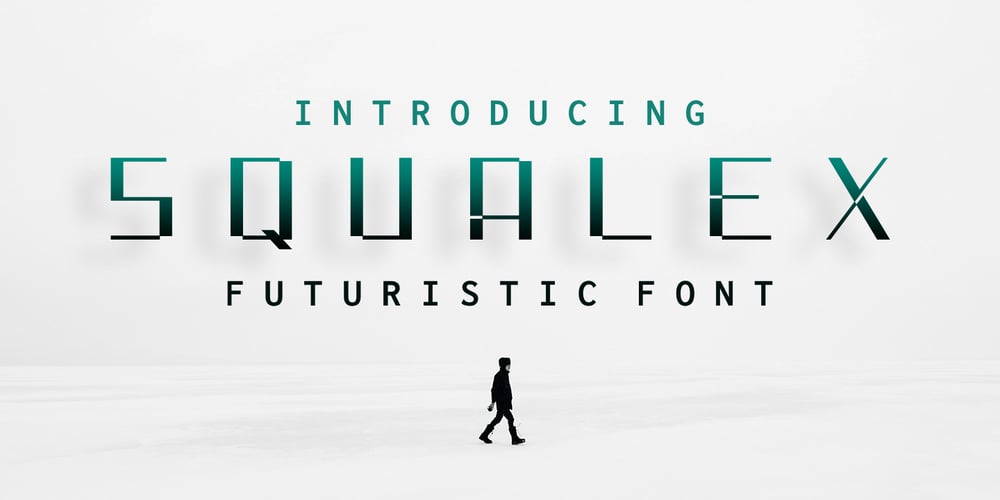
Squalex Font Family was designed by Monica Tatontos and published by Moncimon. Squalex contains 1 styles and family package options. Squalex is a sleek, ultramodern typeface blending sharp geometric forms with smooth curves. Ideal for tech interfaces, sci-fi branding, and innovative designs, Squallex stands out with its high-tech feel. Its clean lines and futuristic accents make it perfect for conveying innovation and forward-thinking in any project.